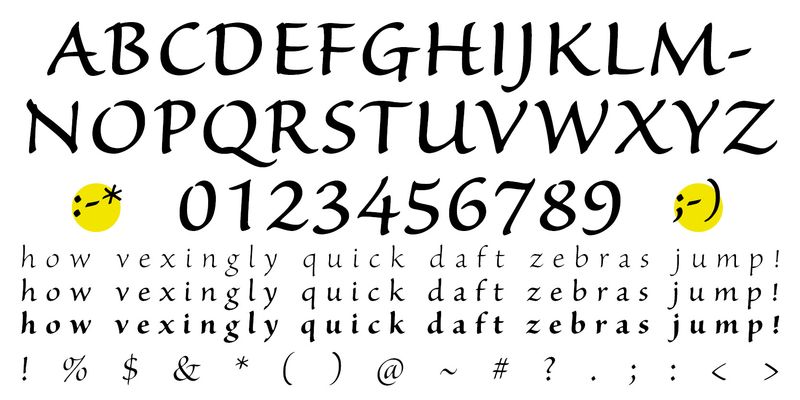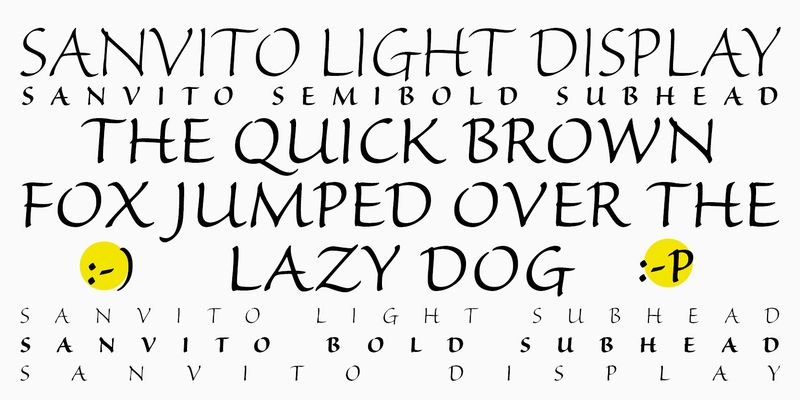
Sanvito is an upright script typeface designed by Robert Slimbach in 1993. Named after one of the principal scribes of the Italian Renaissance, Sanvito is based on the highly practical book hands of the Renaissance humanists. It was designed to combine the spontaneity and liveliness of calligraphic writing with the clarity and practicality of a more formal typeface. Sanvito can be used for display settings and for informal purposes such as correspondence, flyers, and letterheads.